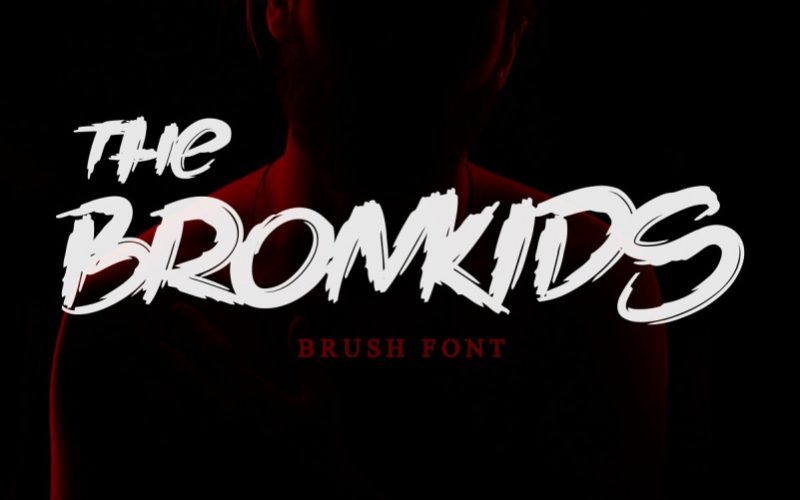
The Bronkids Brush Font
Introducing our newest product The Bronkids. The Bronkids is a strong brush font, making it suitable for your design project : Logo design, clothing design, posters, magazines, quotes and more. Made with natural touch, this font is the best choice for all your design projects.